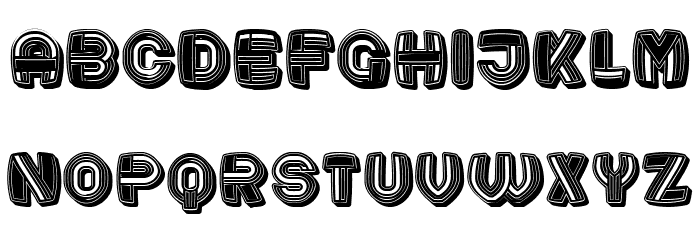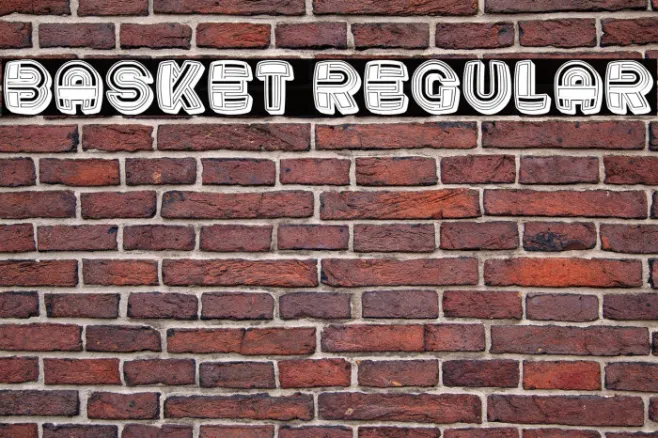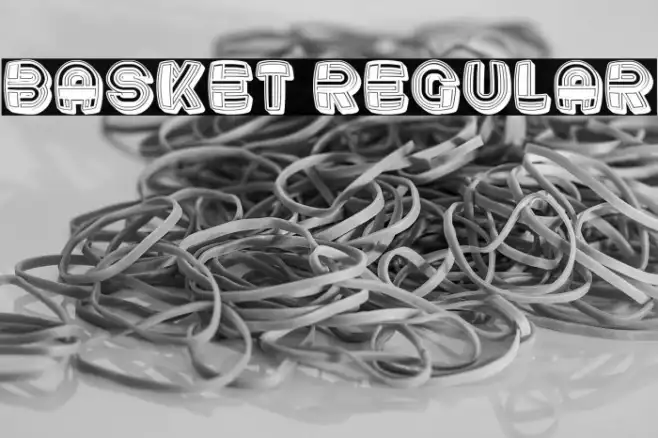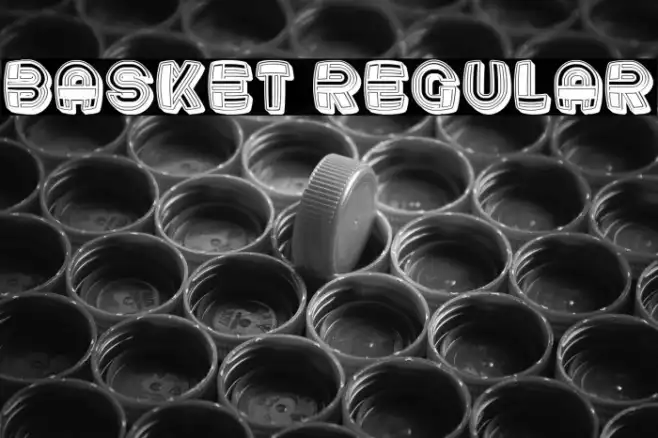
Basket Regular Font
This font features a bold, decorative style with a unique, layered design that gives each character a three-dimensional appearance. The letters are composed of multiple parallel lines, creating a sense of depth and movement. The overall look is playful and eye-catching, making it ideal for projects that require a strong visual impact. The uppercase letters are particularly striking, with their intricate detailing and bold presence. This font is perfect for creative projects where a distinctive and artistic touch is desired.
A bold, decorative font with a layered, three-dimensional design.
- Font: Basket Regular
- Proposed Projects: Ideal for posters, logos, headlines, and any design needing a bold, artistic flair.